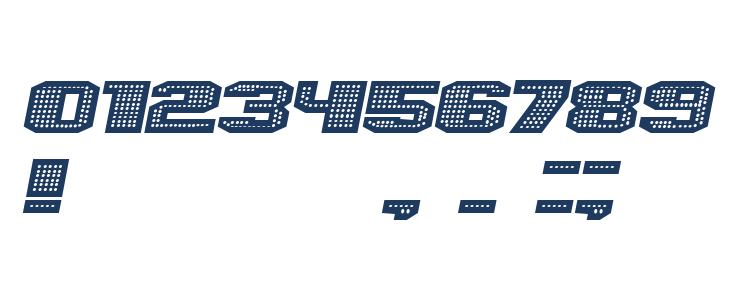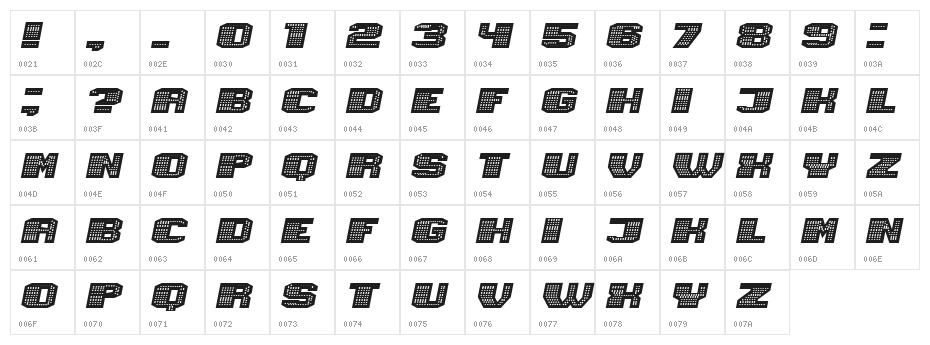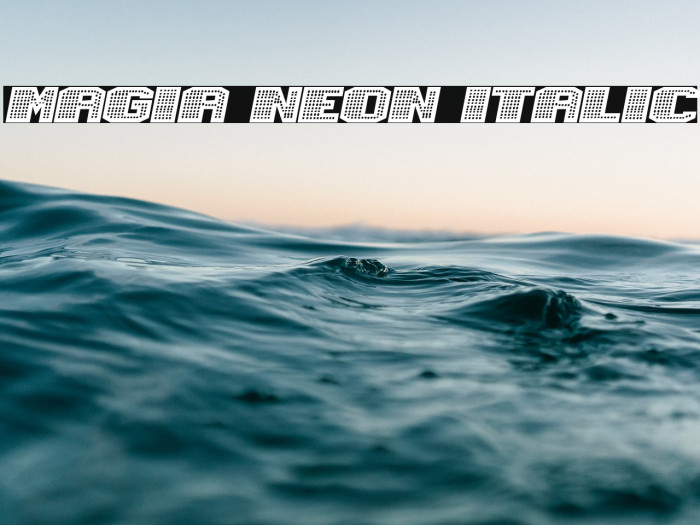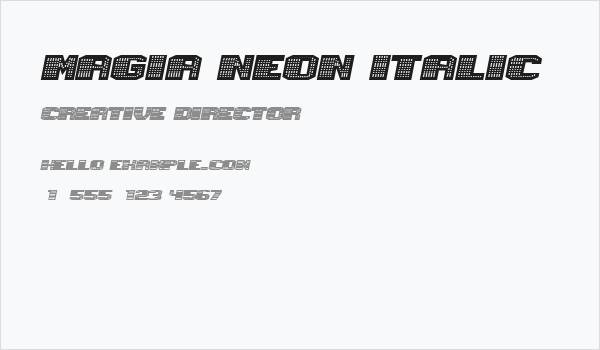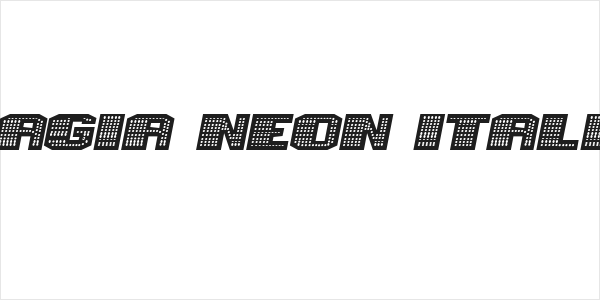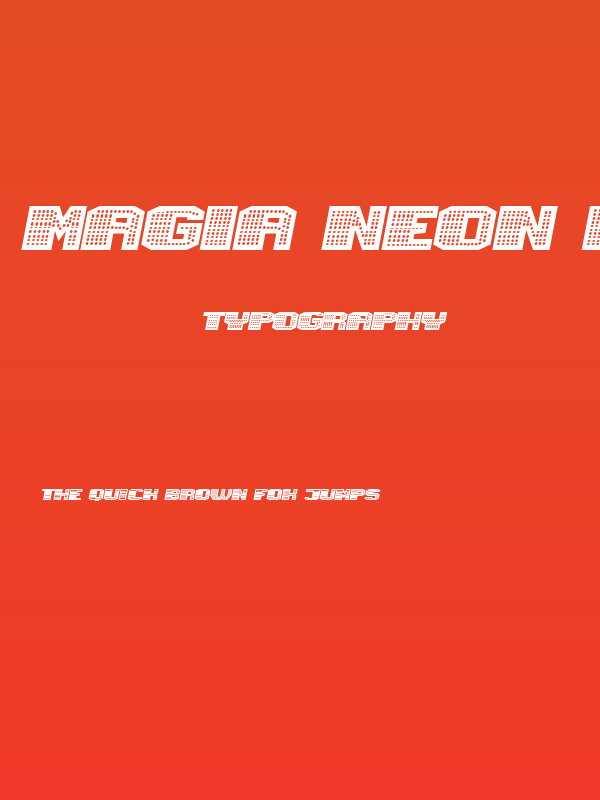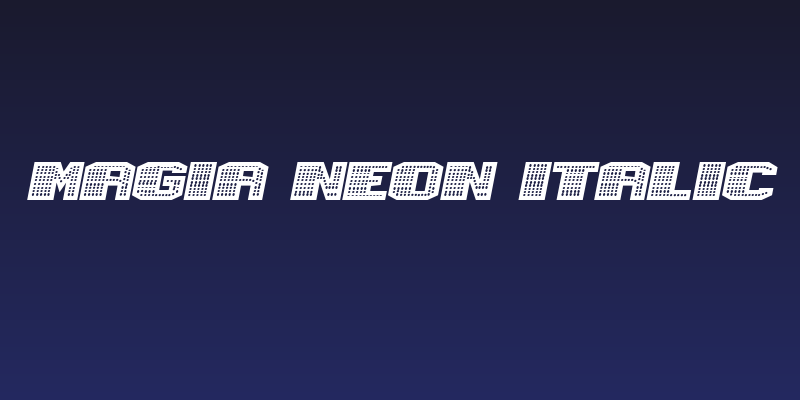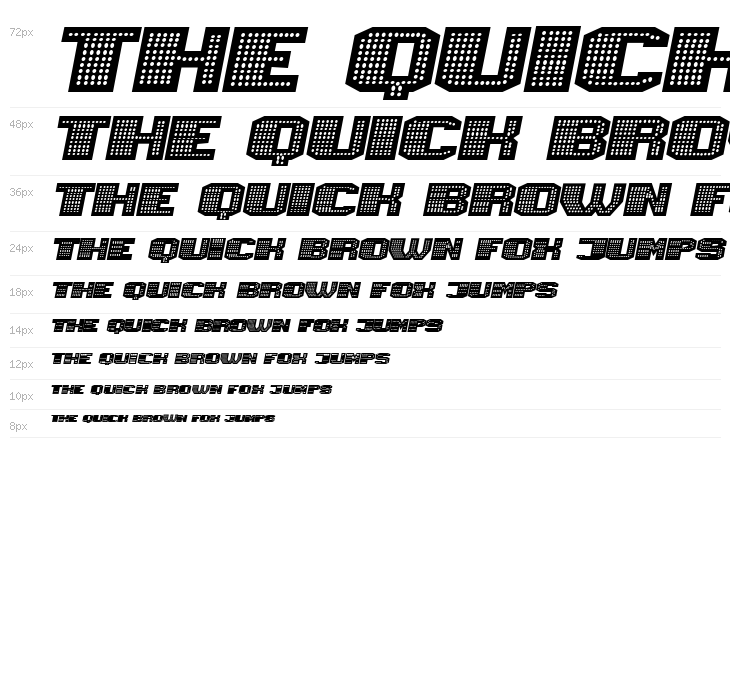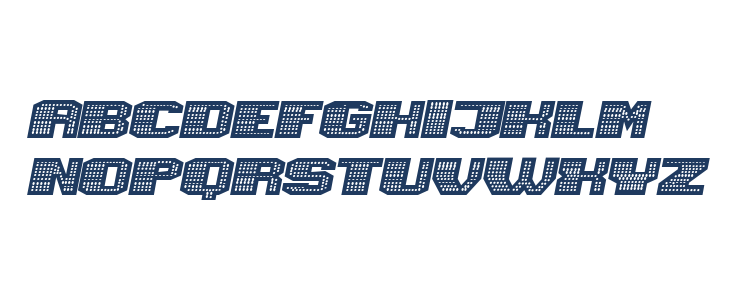
Magia Neon Italic Font
Magia Neon Italic Description
This font features a bold, decorative style with a distinct dotted pattern that mimics the appearance of neon lights. The characters are italicized, adding a dynamic and energetic feel. Each letter and number is filled with evenly spaced dots, creating a visually striking effect reminiscent of vintage marquee signs. The font's design is consistent across uppercase and lowercase letters, as well as numbers and special characters, maintaining a cohesive look. Its unique style makes it ideal for projects that require a retro or eye-catching aesthetic.
| Proposed Projects | Ideal for retro-themed designs, signage, posters, event invitations, and branding that requires a vintage or eye-catching look. |